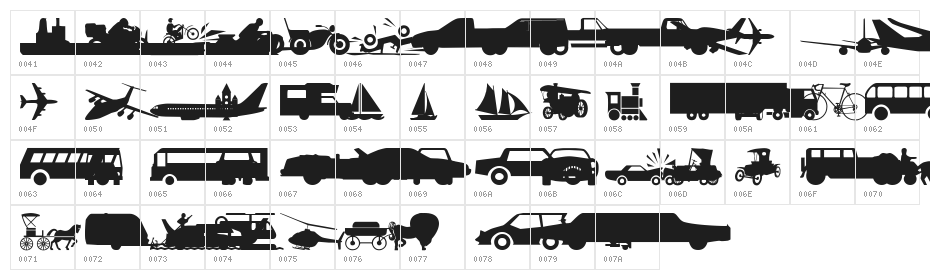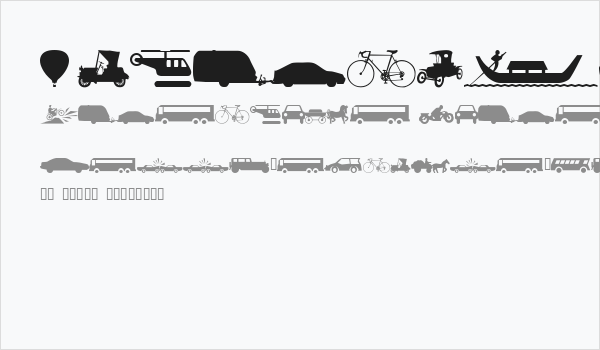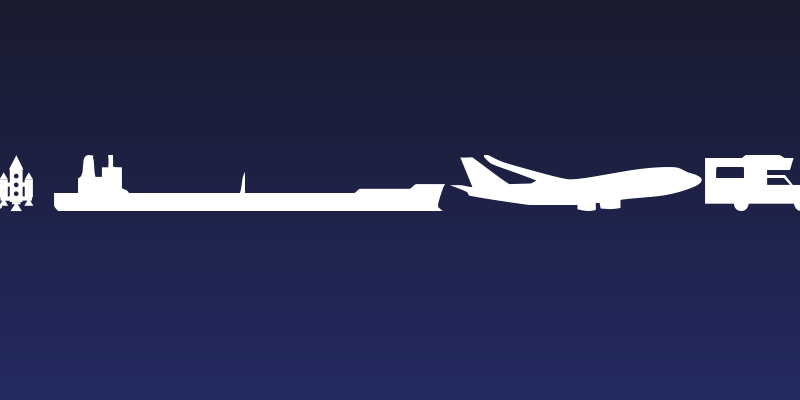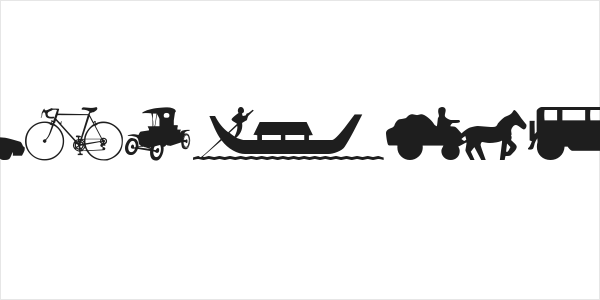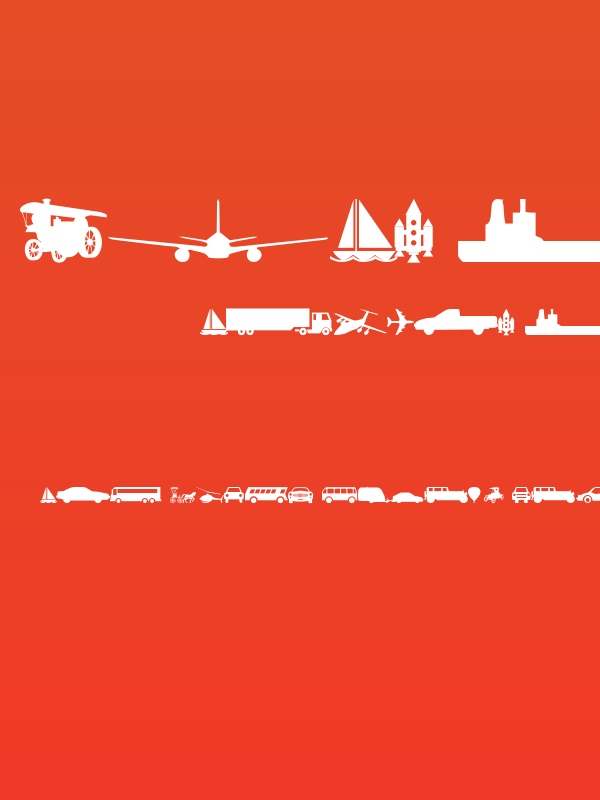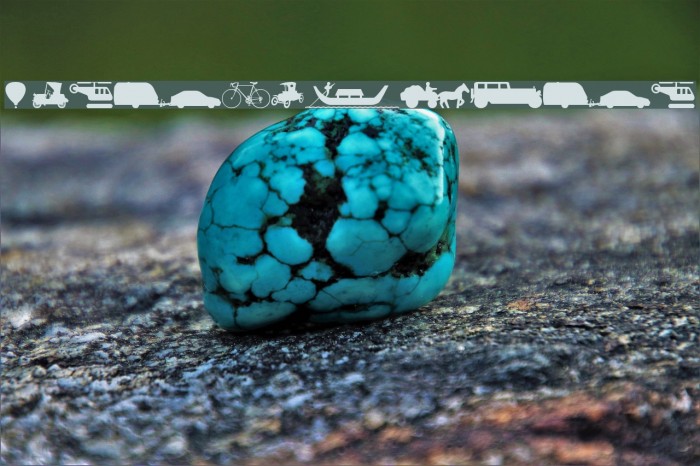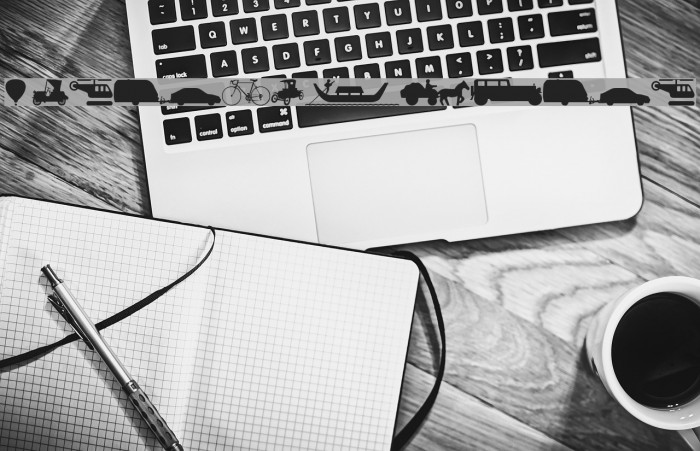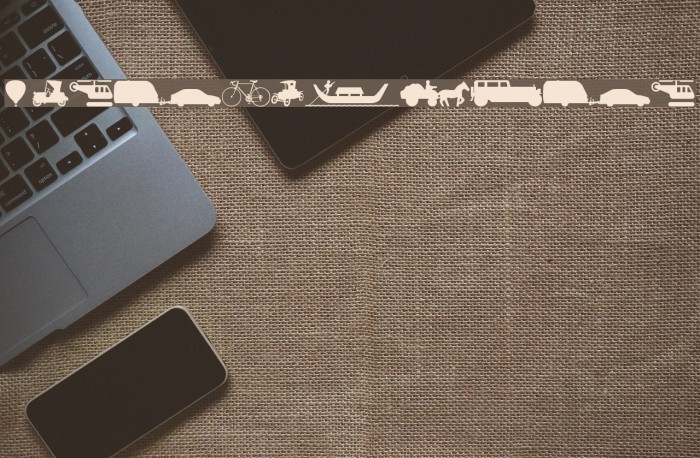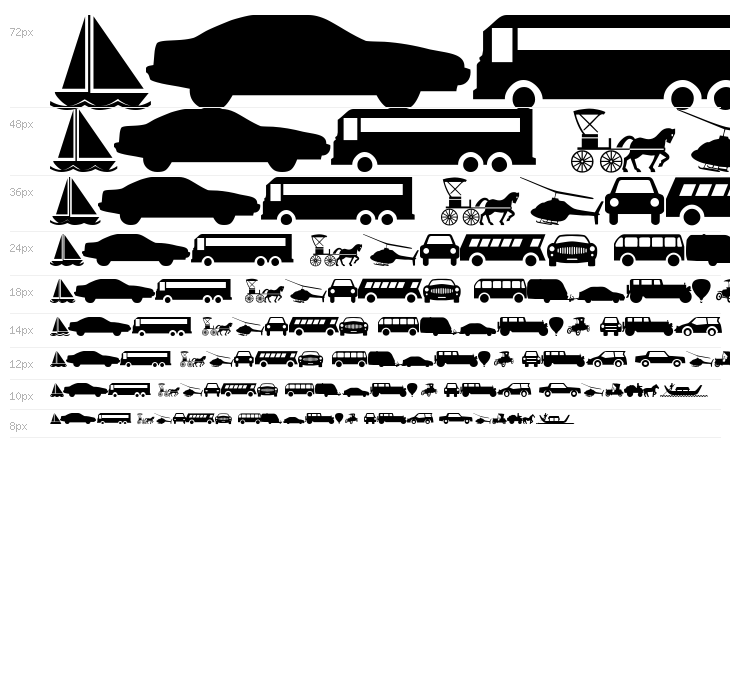
wmtransport1 Font
wmtransport1 Description
This is a decorative font featuring a variety of transportation-themed silhouettes. Each character is represented by a different vehicle or mode of transport, ranging from bicycles and motorcycles to airplanes and ships. The design is highly illustrative, with each glyph capturing the essence of its respective vehicle in a bold, black silhouette. The font is playful and visually engaging, making it suitable for projects that require a thematic or novelty approach. The characters are evenly spaced, ensuring clarity and readability despite the intricate designs.
| Use Case | Logos, Posters, Thematic Designs |
| Proposed Projects | Ideal for children's books, transportation-themed posters, educational materials, or any creative project that requires a playful and thematic font. |